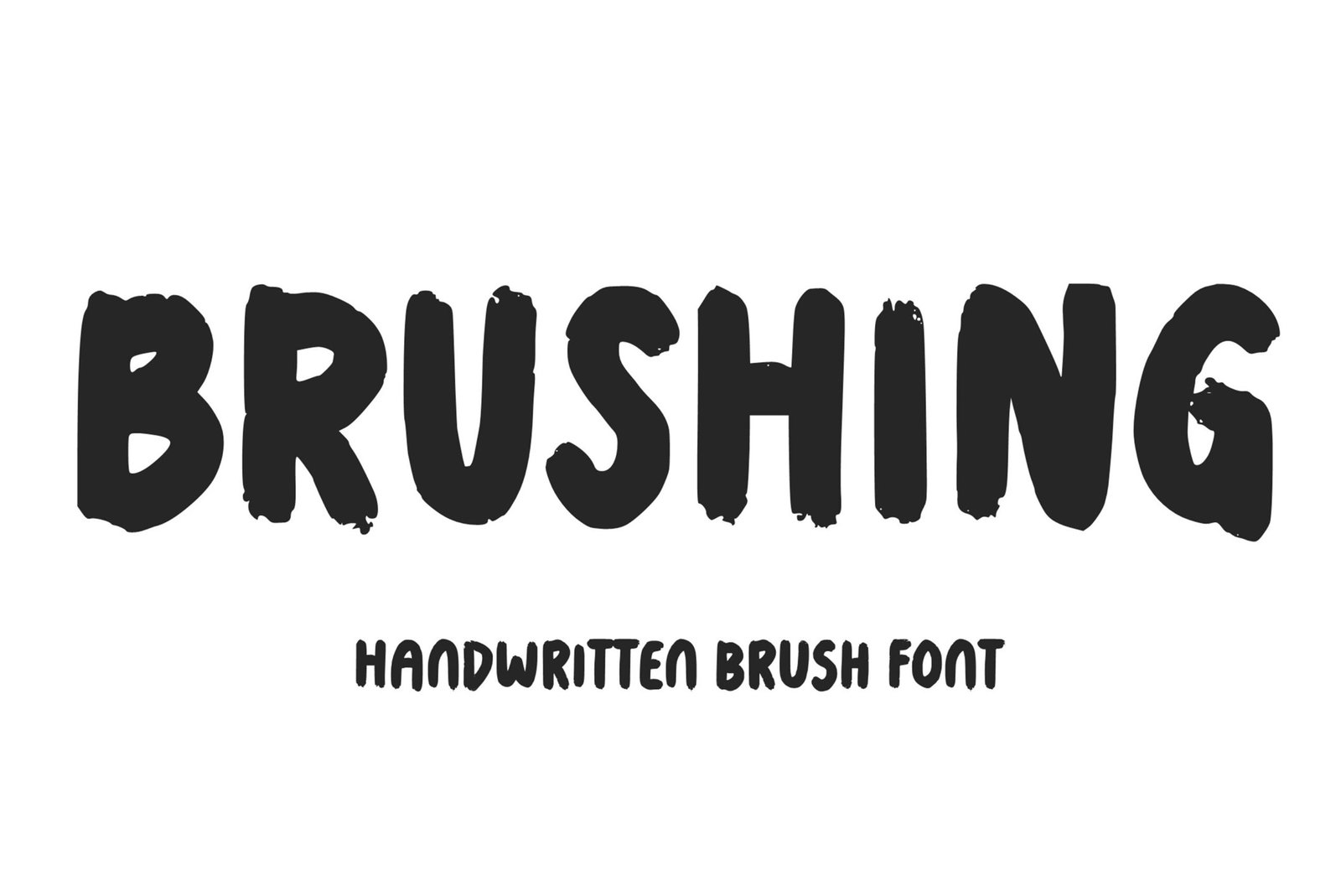
Brushing Font
Handwritten brush font. “Brushing”. Perfect for advertising and display purposes, including banners, book covers, shirts, posters, logos and much more!
This is an ALL CAPS font. Featuring numbers, characters, and punctuation.